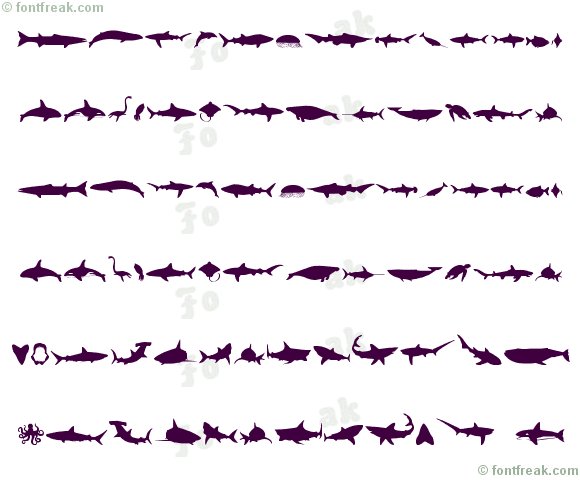
Giants of the Sea
About Giants of the Sea
The "Giants of the Sea" font by Daniel Zadorozny is a unique decorative typeface that captures the essence of marine life through its playful design. This font is categorized as a display typeface, making it ideal for eye-catching applications. With its bold stroke weight and smooth curves, the characters are reminiscent of oceanic themes, showcasing a variety of sea creatures as part of its alphabet. The overall design features a harmonious balance of spacing that allows for clarity and legibility, even at larger sizes.
This font is particularly suitable for use in creative projects that celebrate the ocean. It can be effectively utilized in wedding invitations that have a nautical theme, adding a whimsical touch. Movie posters showcasing marine adventures would also benefit from the bold personality of this font, as it draws attention while evoking the mystery of the sea. Additionally, restaurant menus specializing in seafood can leverage the playful nature of the "Giants of the Sea" font to create a cohesive branding experience that resonates with customers. Graphic designers, small business owners, and content creators looking for a distinctive typeface will find this font to be a valuable addition to their toolkit.
What sets the "Giants of the Sea" font apart is its ability to convey a sense of adventure and fun while remaining versatile enough for various applications. The incorporation of marine life elements not only makes it visually appealing but also connects with audiences who appreciate the ocean's beauty. For those interested in exploring this creative typeface, the "Giants of the Sea font free download" allows you to integrate this exceptional design into your projects effortlessly.